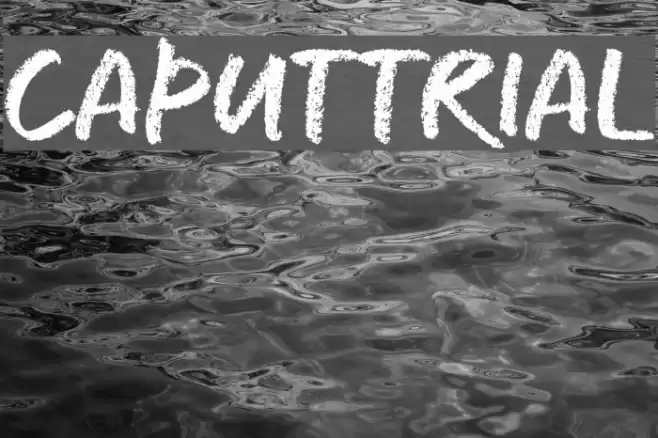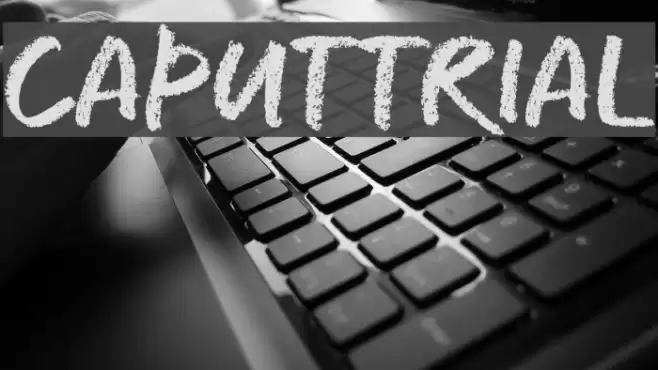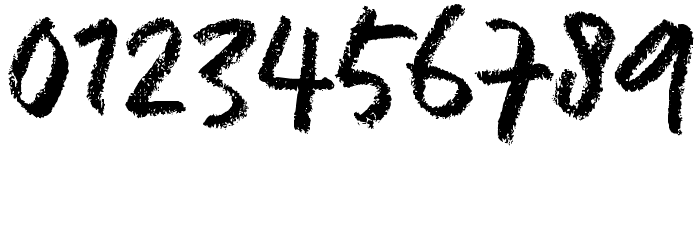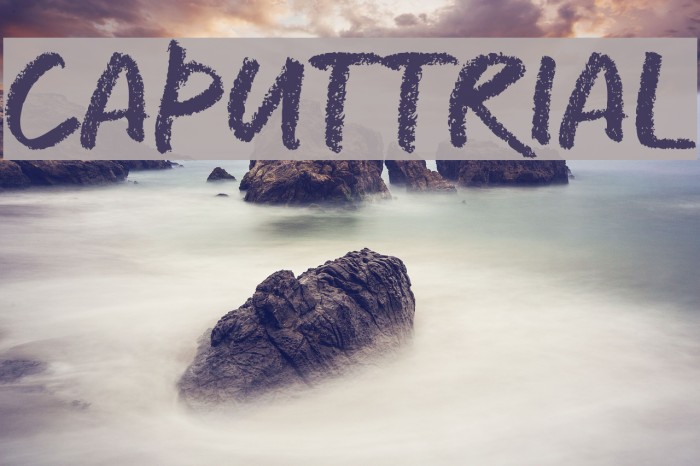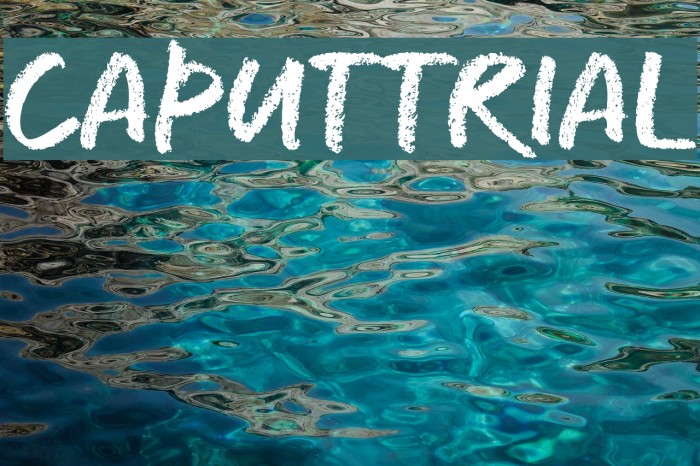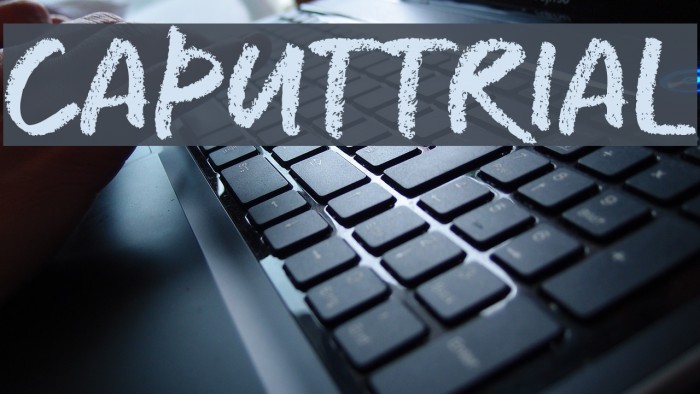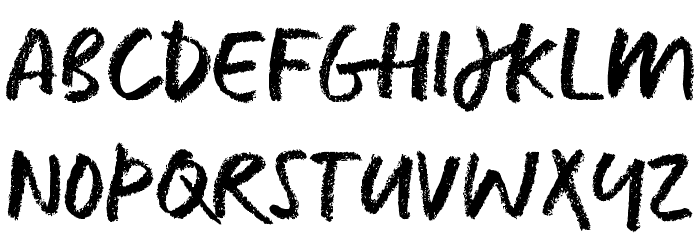
CAPUT_TRIAL Font
CAPUT_TRIAL Description
This font features a bold, expressive style with a textured, brush-like appearance. The characters are dynamic and energetic, with a hand-drawn quality that gives them a personal and artistic feel. The uppercase and lowercase letters maintain a consistent style, with slightly irregular edges that add to the organic look. The numbers and special characters follow the same aesthetic, ensuring a cohesive design throughout. This font is ideal for projects that require a bold statement or a creative touch, such as posters, branding materials, or artistic designs.
A bold, textured, brush-style font with an expressive, hand-drawn appearance from Uncategorized fonts.
- Proposed Projects: Ideal for posters, branding, artistic designs, and any project needing a bold, creative touch.
- Overall Style: Artistic, Expressive